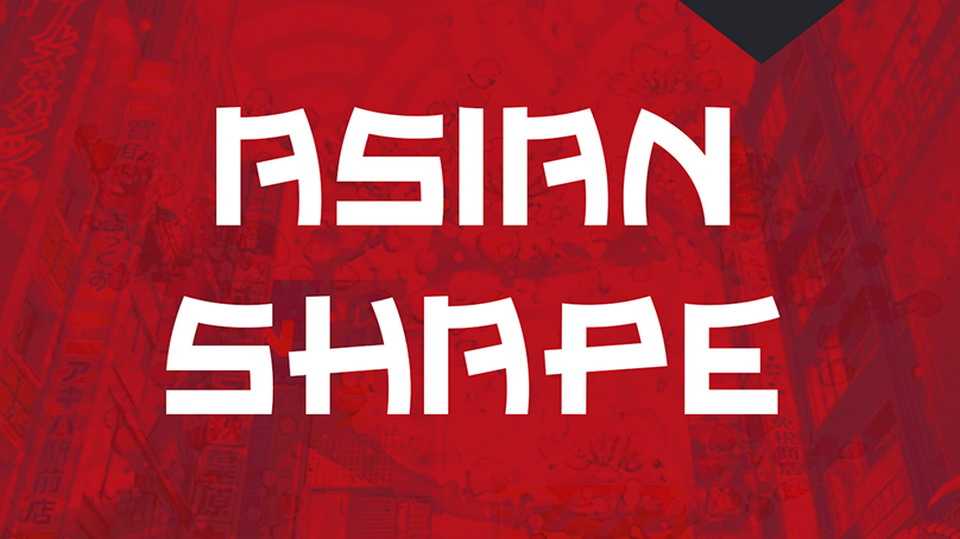
Download Asian Shape font, a display typography inspired by Asian characters. Character analyzes of various Asian cultures were made to arrive at the final form.
Designer: Lucas Ferreira